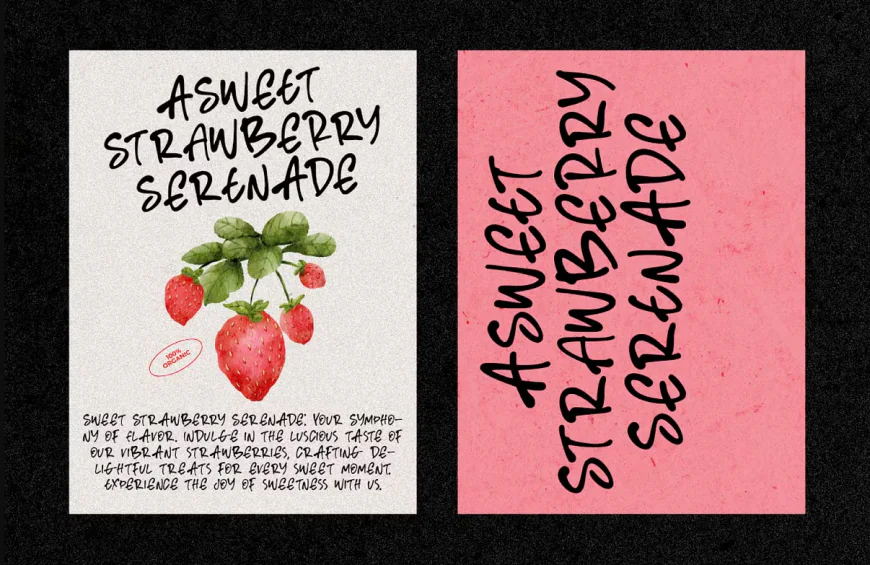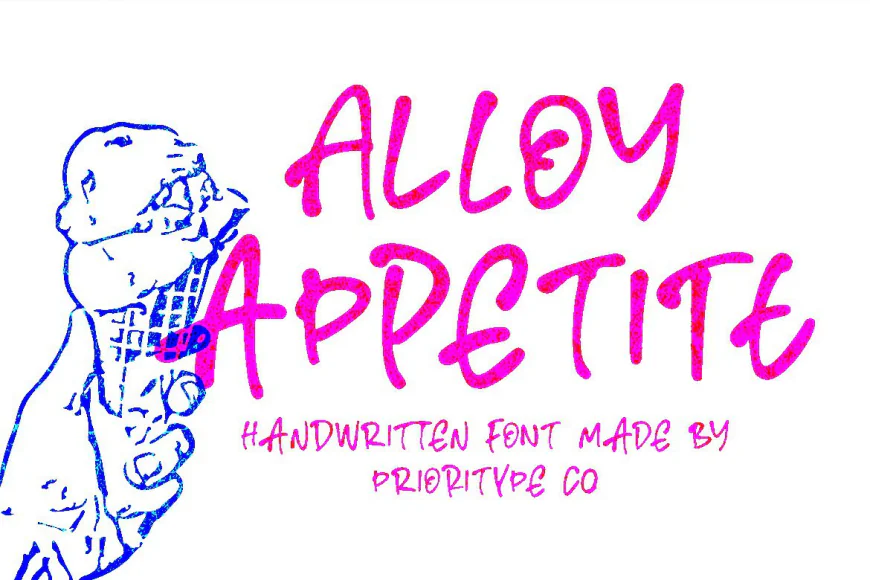
A handwritten font featuring an irregular yet distinctive balance of thick and thin ink strokes. The mix of uppercase and lowercase letters enhances its natural, hand-drawn feel. Perfect for branding, logos, quotes, and more.